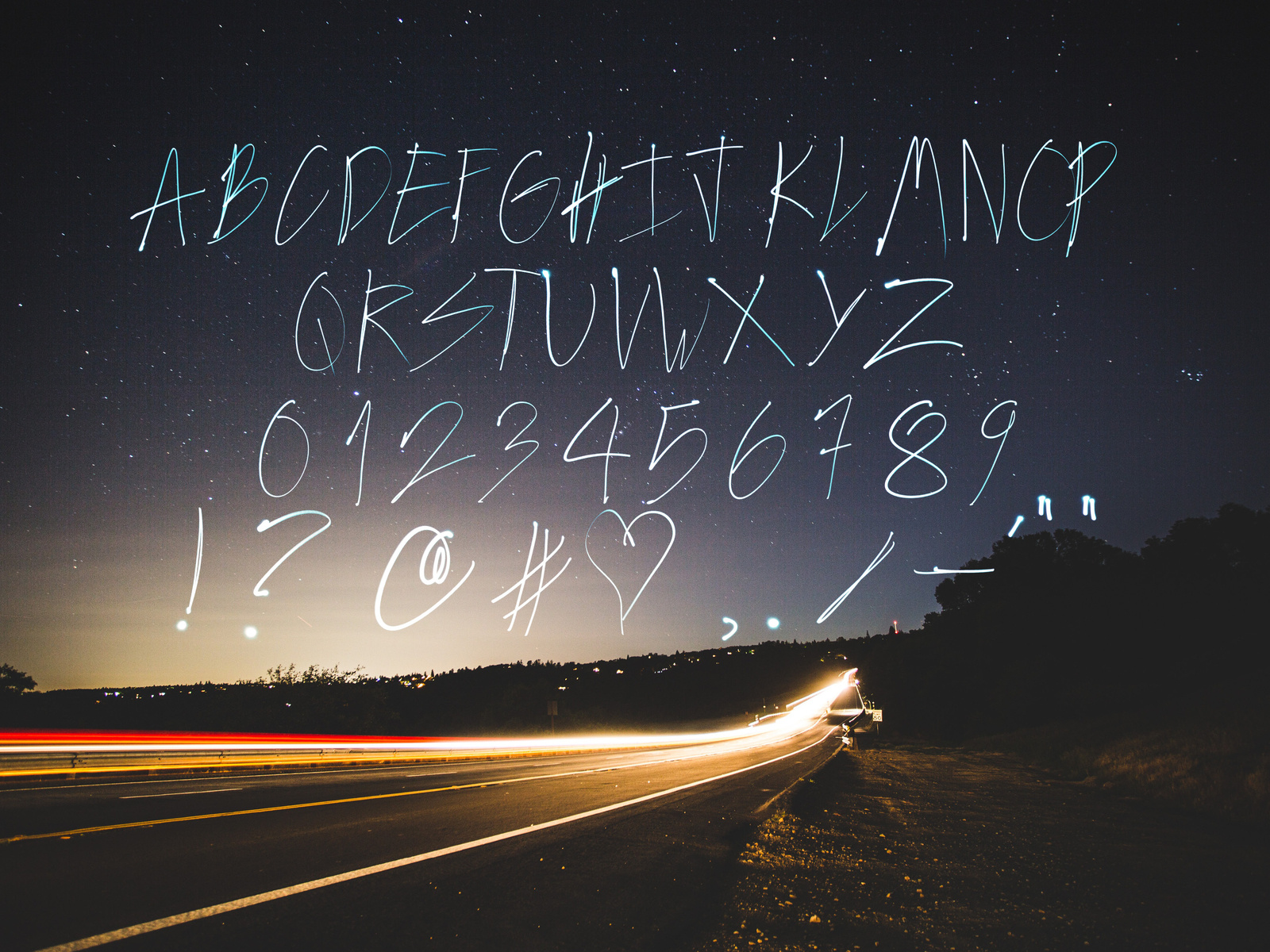
VANDAL Typeface - characters
This is truly a one-of-a-kind OTF typeface made from light painting. Each letter was photographed, then isolated completely so it's transparent on any background. Using blending modes and adjustment layers in Photoshop, VANDAL can have tons of different looks, effects and colors.